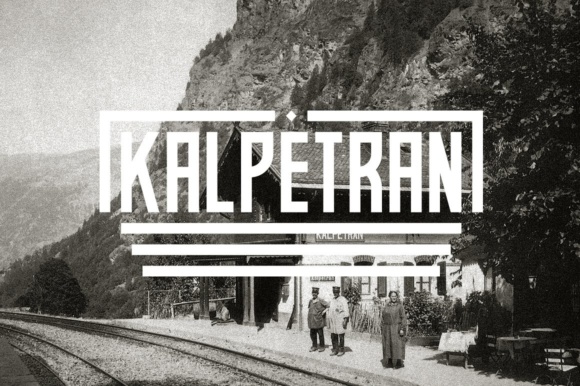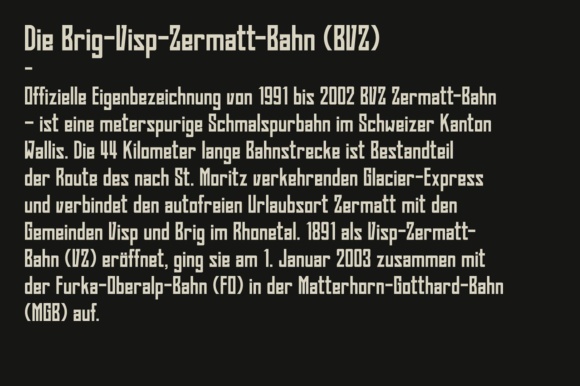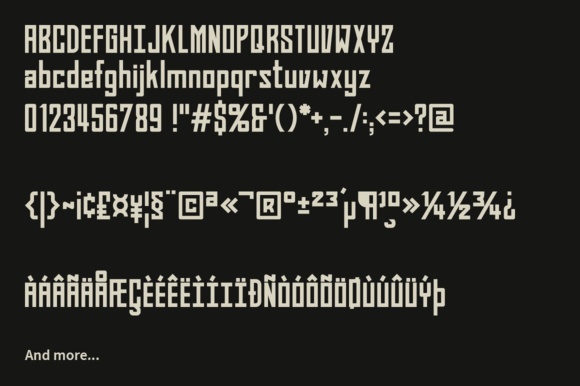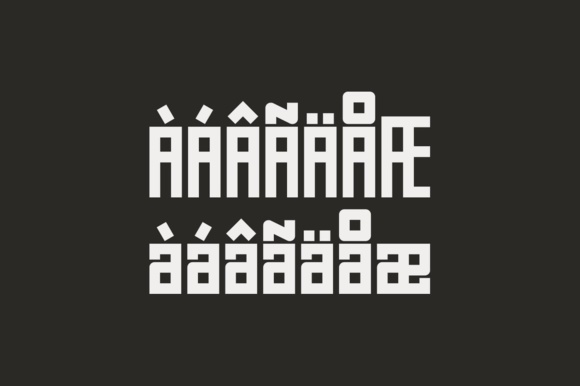
Bahn Pro Font: A Sleek Display Font with a Nostalgic Twist
Are you looking for a font that adds a touch of nostalgia and retro flair to your design projects? Look no further than Bahn Pro Font. This sleek display font is inspired by old Austrian Bahn (railway) signs, giving it a unique and distinctive look that’s sure to capture attention. In this article, we’ll take a closer look at Bahn Pro Font, its features, and how you can use it to elevate your designs.
What is Bahn Pro Font?
Bahn Pro Font is a modern display font that’s part of a wider font family. It’s designed to evoke the spirit of old Austrian railway signs, with clean lines, geometric shapes, and a retro aesthetic. The font is perfect for use in a wide range of projects, from branding and advertising to packaging and web design.
Key Features of Bahn Pro Font
So, what makes Bahn Pro Font so special? Here are some of its key features:
- Retro aesthetic: Bahn Pro Font has a distinctive retro look that’s inspired by old Austrian railway signs. It’s perfect for designers who want to add a touch of nostalgia to their designs.
- Sleek and modern: Despite its retro inspiration, Bahn Pro Font is a sleek and modern font that’s perfect for use in contemporary designs.
- Clean lines and geometric shapes: The font features clean lines and geometric shapes, making it easy to read and versatile.
- Part of a wider font family: Bahn Pro Font is one style in a wider font family, giving designers a range of options to choose from.
How to Use Bahn Pro Font
Bahn Pro Font is a versatile font that can be used in a wide range of projects. Here are some ideas to get you started:
- Branding and advertising: Use Bahn Pro Font to create eye-catching logos, posters, and advertisements that stand out from the crowd.
- Packaging design: Add a touch of nostalgia to your packaging designs with Bahn Pro Font. It’s perfect for use on labels, tags, and other packaging materials.
- Web design: Use Bahn Pro Font to create bold and eye-catching headings and titles for your website. It’s also perfect for use in social media graphics and other online content.
- Crafting and DIY projects: Bahn Pro Font is also perfect for use in crafting and DIY projects, such as making signs, banners, and other decorative items.
Tips for Using Bahn Pro Font
Here are some tips for using Bahn Pro Font effectively:
- Use it sparingly: Bahn Pro Font is a bold and eye-catching font, so use it sparingly to avoid overwhelming your design.
- Pair it with other fonts: Bahn Pro Font looks great when paired with other fonts, such as sans-serif fonts or script fonts. Experiment with different pairings to find the one that works best for your design.
- Experiment with colors: Bahn Pro Font looks great in a range of colors, from bold and bright to muted and pastel. Experiment with different colors to find the one that works best for your design.
Bahn Pro Font is a sleek and modern display font with a nostalgic twist. Its retro aesthetic and clean lines make it perfect for use in a wide range of projects, from branding and advertising to packaging and web design. With its versatility and range of uses, Bahn Pro Font is a must-have font for designers and crafters. So why not give it a try and see how it can elevate your designs?
Whether you’re a designer, crafter, or DIY enthusiast, Bahn Pro Font is a great addition to your font collection. With its unique retro aesthetic and versatility, it’s perfect for use in a wide range of projects. So why not give it a try and see how it can elevate your designs?